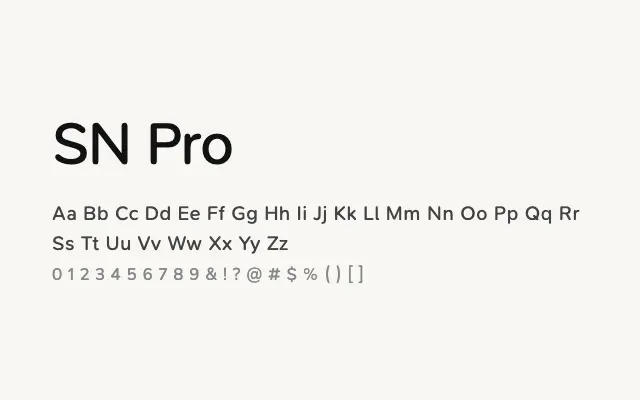
A clean, wide-ranging geometric sans with strong Cyrillic support and a modern, neutral character.
SN Pro offers an extensive weight range from ExtraLight to Black, making it adaptable across headline, body, and interface contexts. Its geometric foundations keep letterforms consistent and legible at small sizes on screen, while the robust Cyrillic coverage makes it genuinely useful for multilingual digital products. It sits comfortably alongside other modern geometric sans families without feeling derivative.
SN Pro is a contemporary geometric sans-serif with a clean, modern structure and a wide weight range covering Cyrillic and Latin scripts. Its forms are precise and neutral, suited to interface and branding applications.